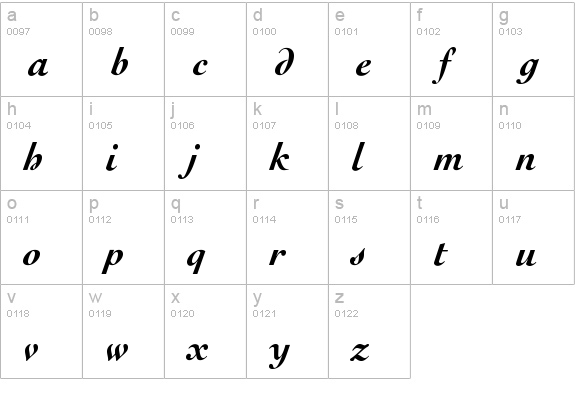
Engravers' Oldstyle 205 Bold Italic Font Details
Engravers' Oldstyle 205 Bold Italic is a strong, high-contrast, italic variant in the Engravers' typeface family \xE2\x80\x94 well suited to headlines, attention-grabbing titles, and strong calls-to-action.
Engravers' Oldstyle 205 Bold Italic font is a timeless and elegant typeface that exudes sophistication and class. Its bold and italic design adds a touch of flair and style to any project, making it perfect for both formal and creative uses. The sharp serifs and intricate details of this font give it a classic and professional look that is sure to make a statement. The best part? Engravers' Oldstyle 205 Bold Italic font is completely free to download at FontsMarket.com. Now you can elevate your designs with this stunning typeface without breaking the bank. Don't miss out on the opportunity to add a touch of refinement to your projects with this versatile and eye-catching font. Download it today and take your designs to the next level!